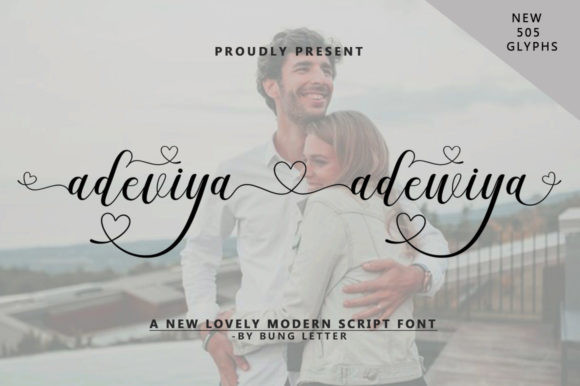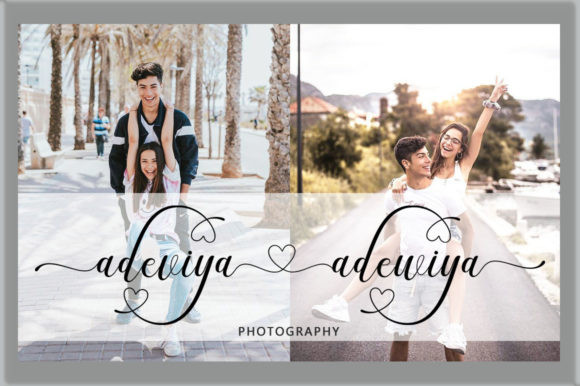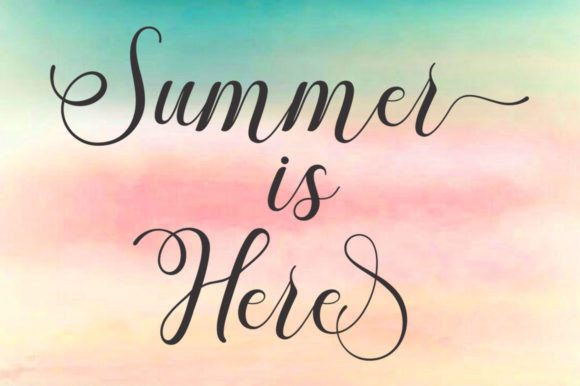
Adeviya Adewiya Font
Adeviya Adewiya is an elegant and flowing handwritten font. It is PUA encoded which means you can access all of the glyphs and swashes with ease! It features a varying baseline, smooth lines, gorgeous glyphs and stunning alternates. It maintains its classy calligraphic influences while feeling contemporary and fresh. Fall in love with this font and bring your projects to the highest levels!